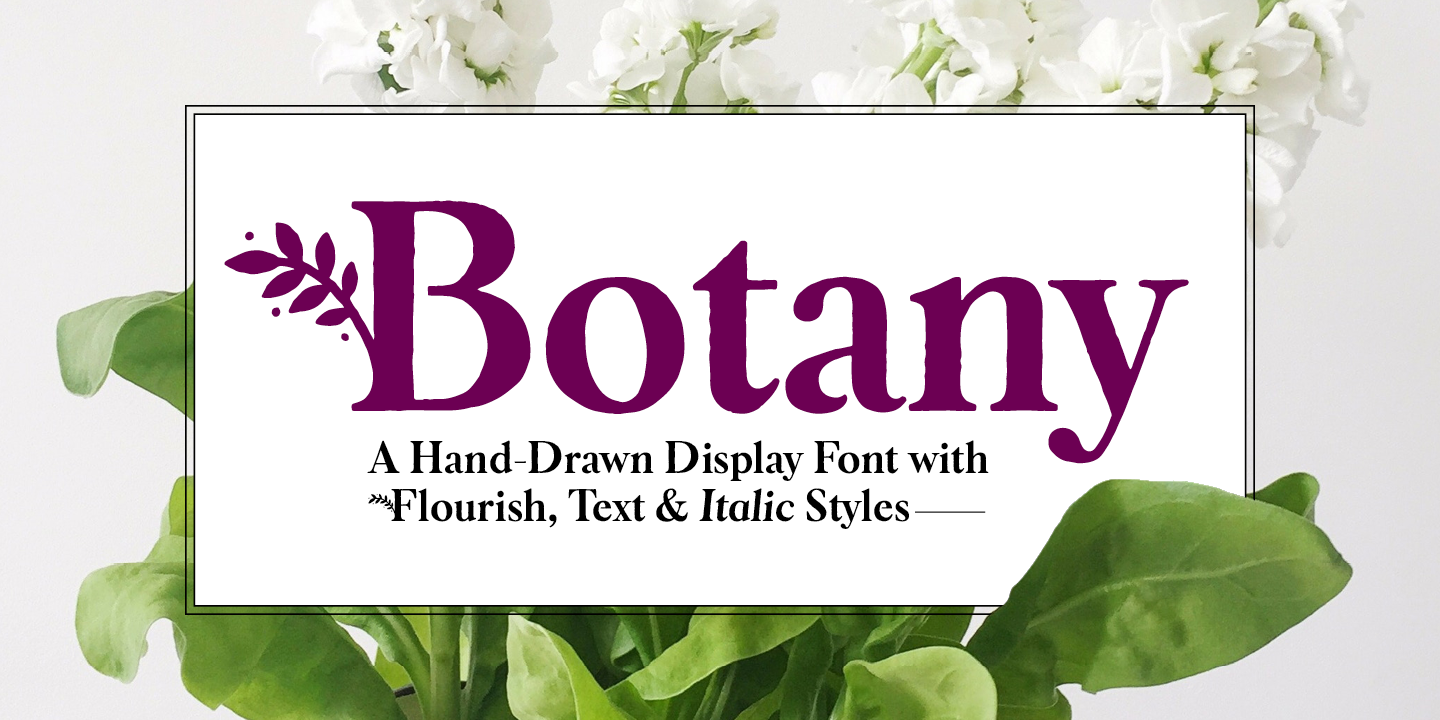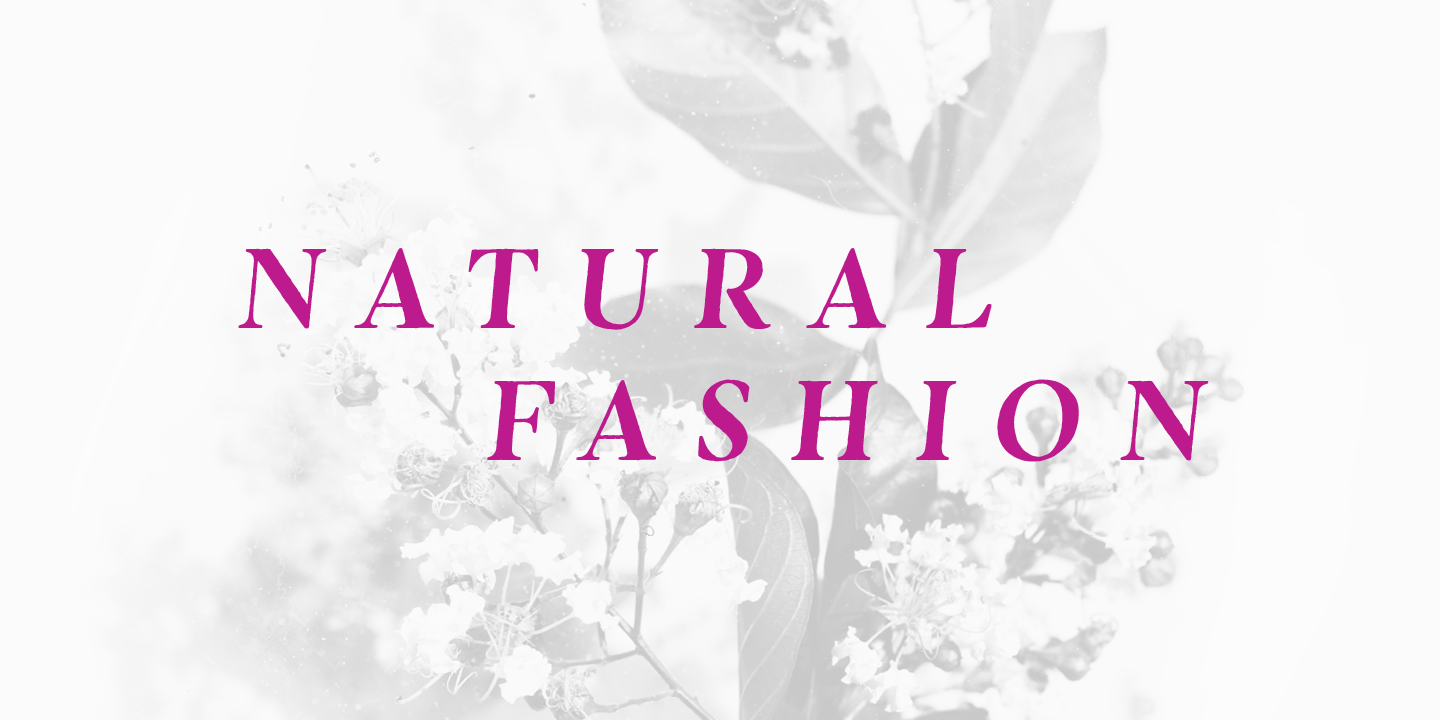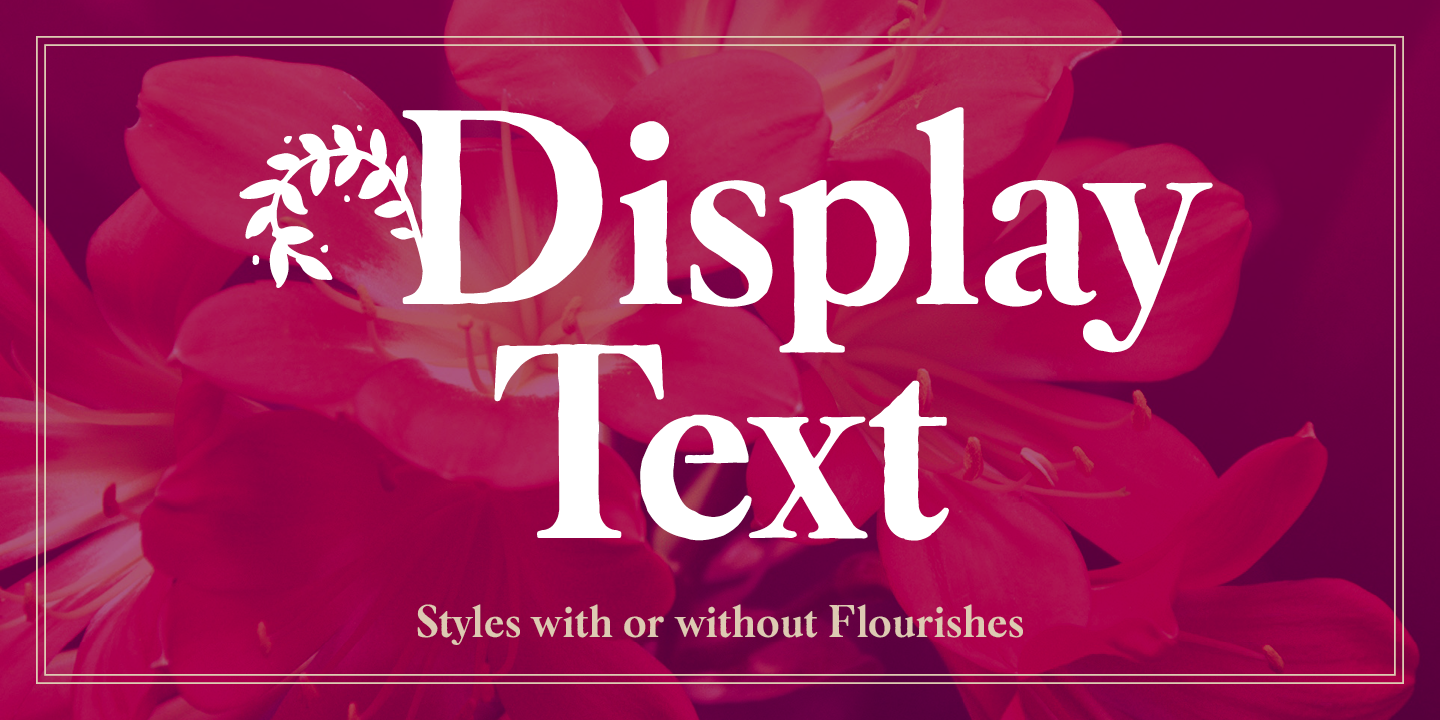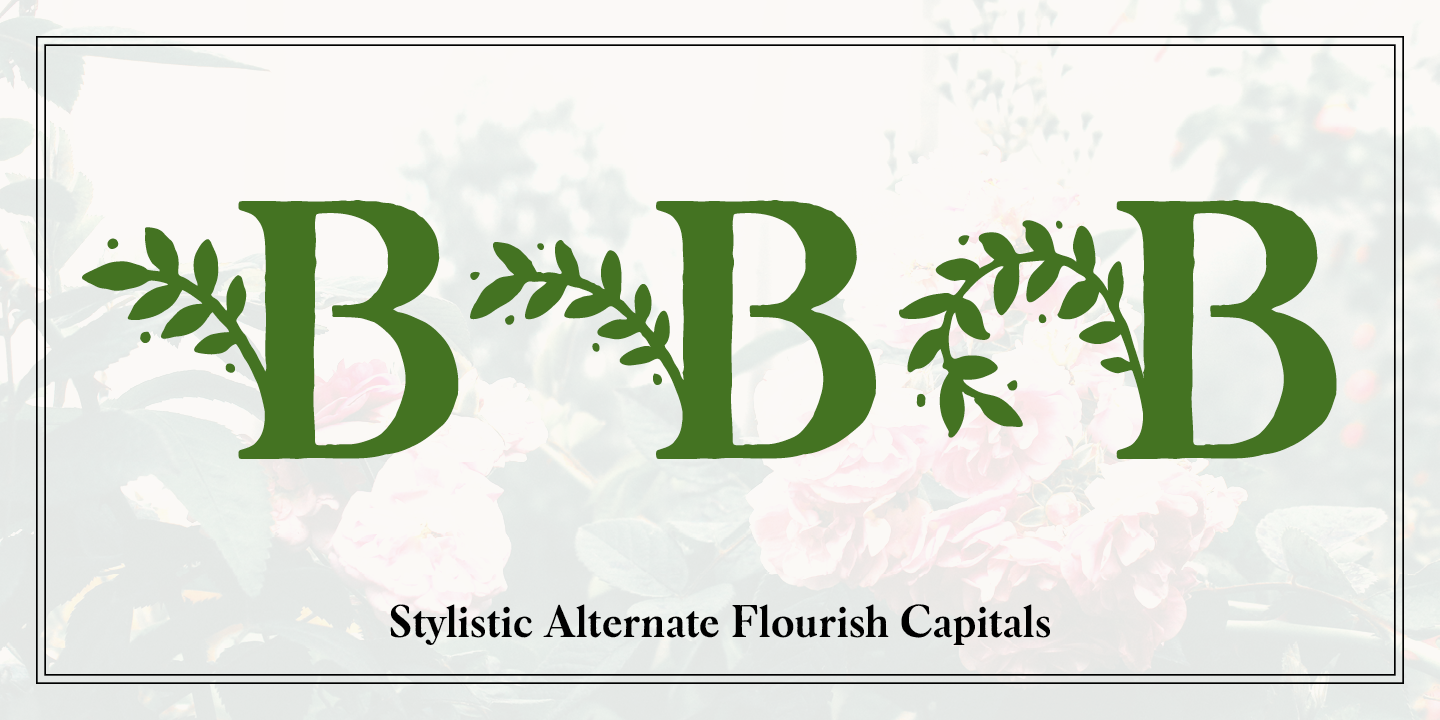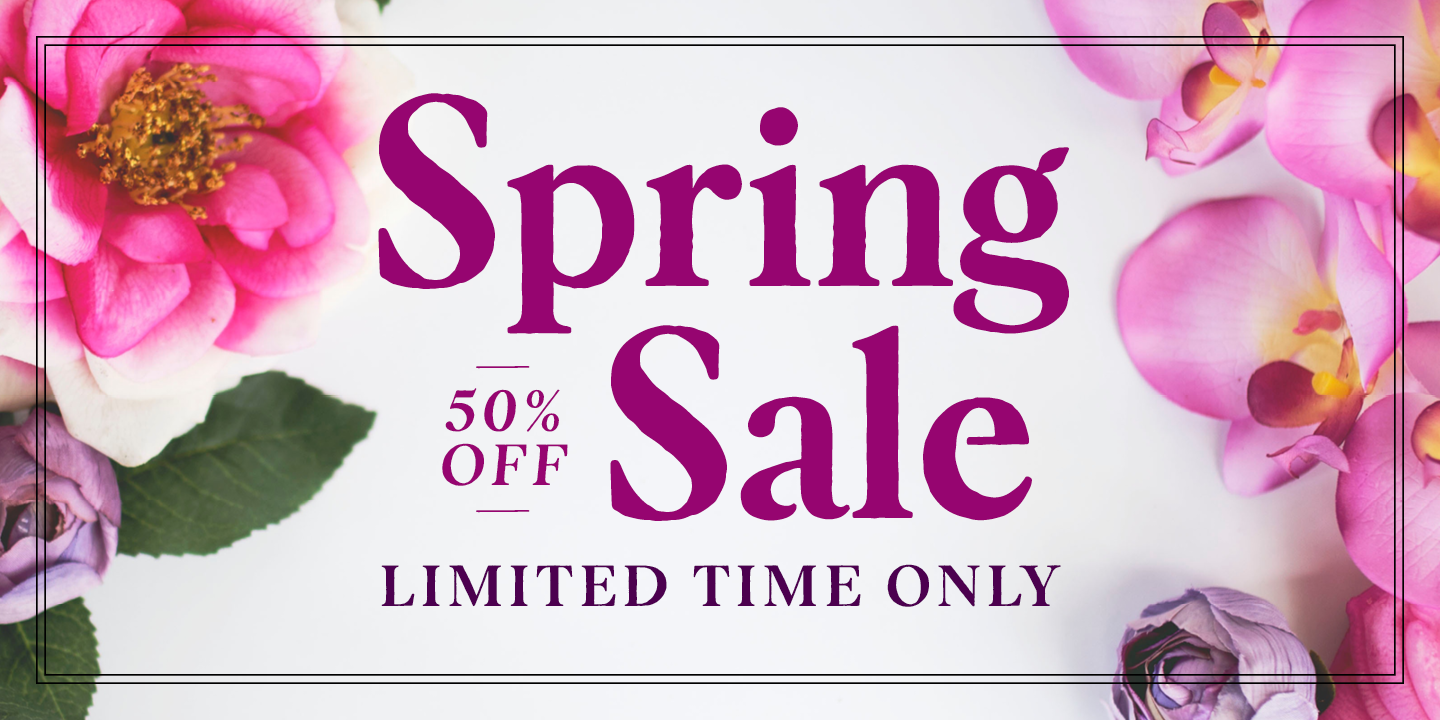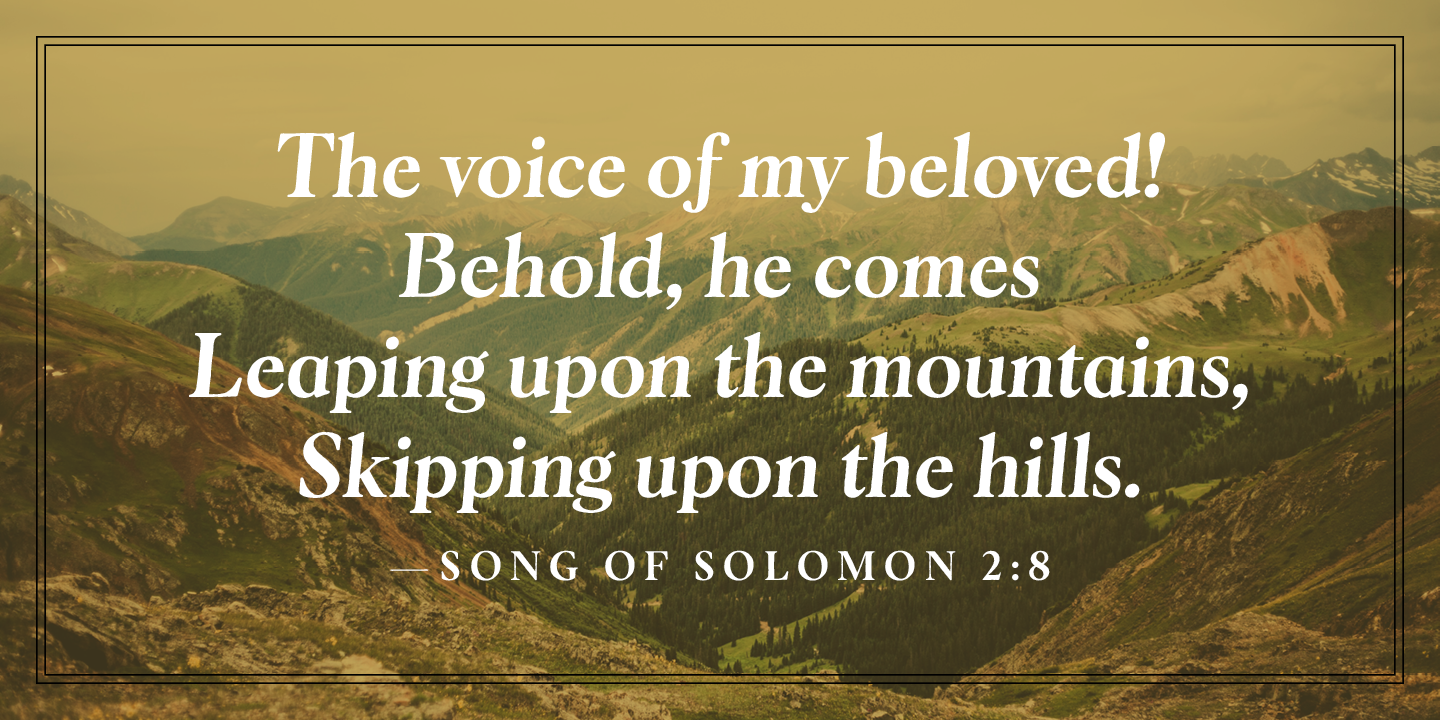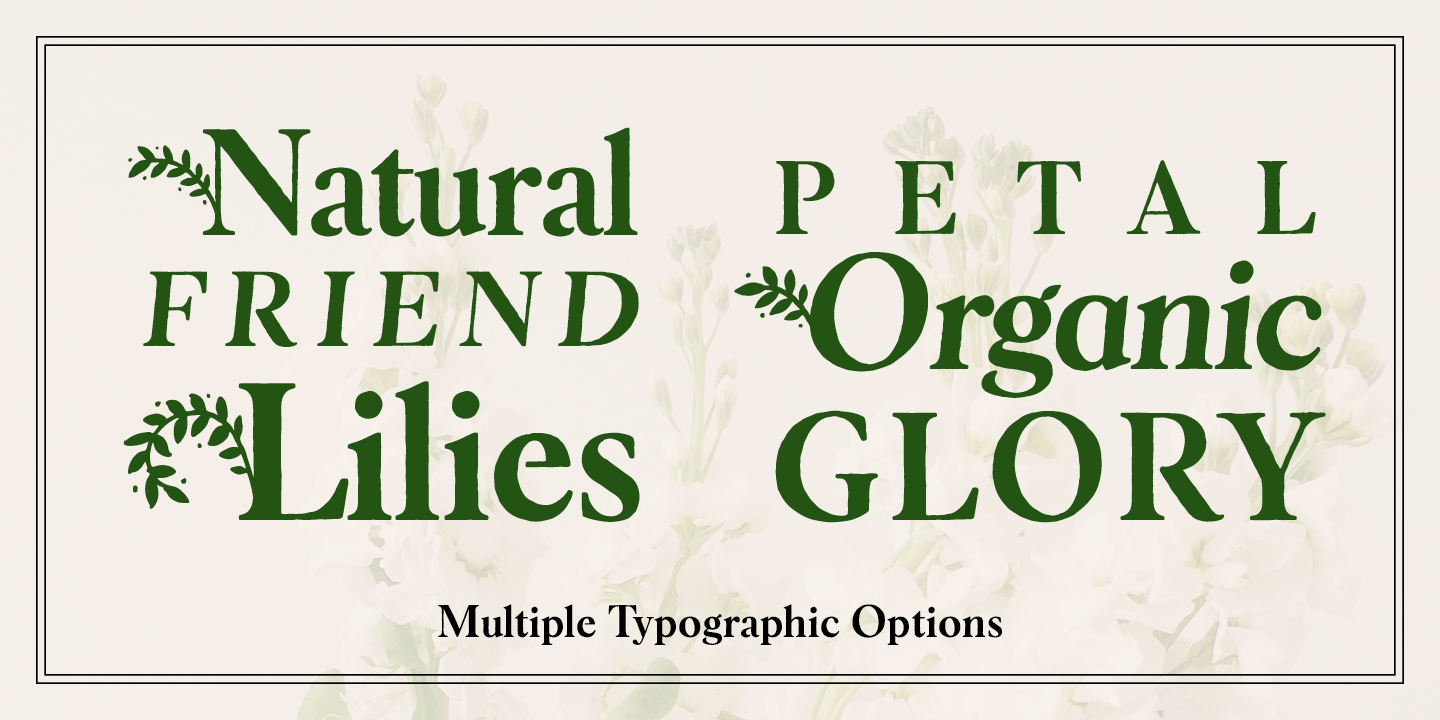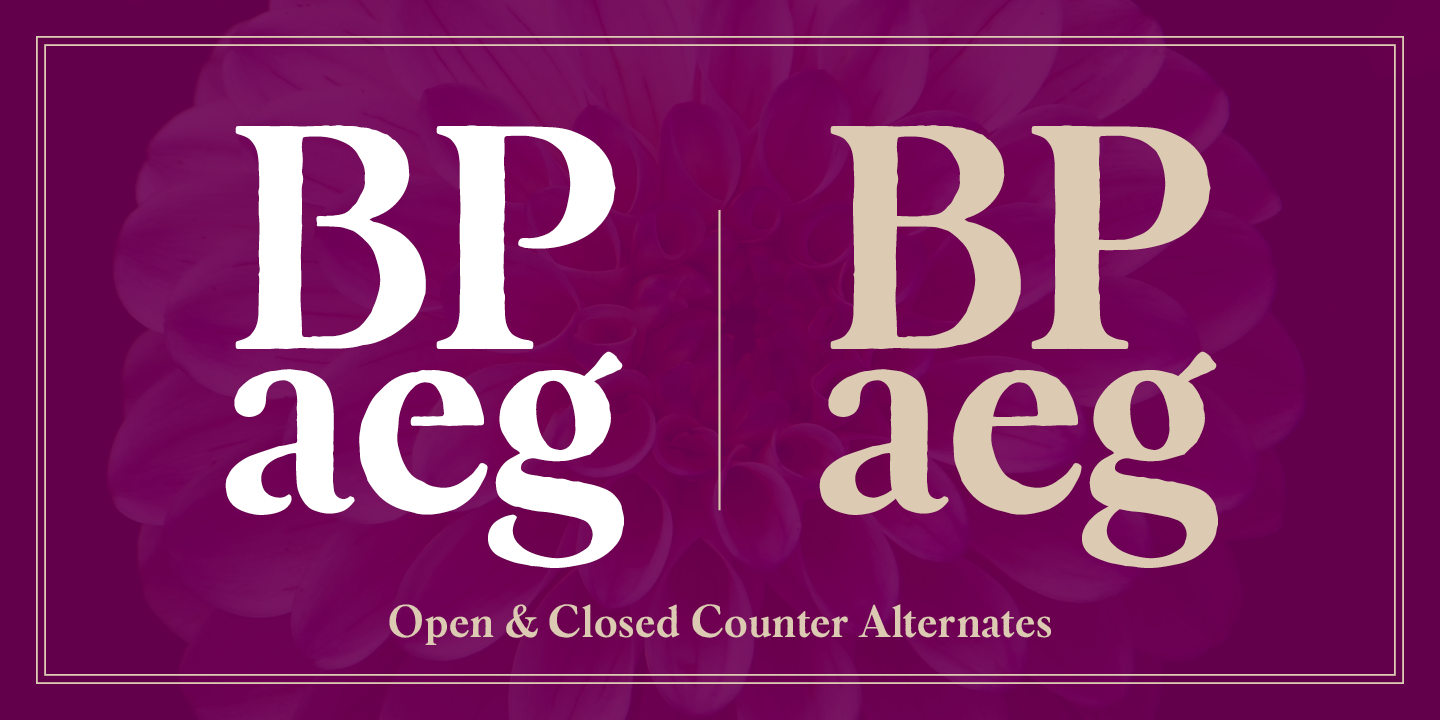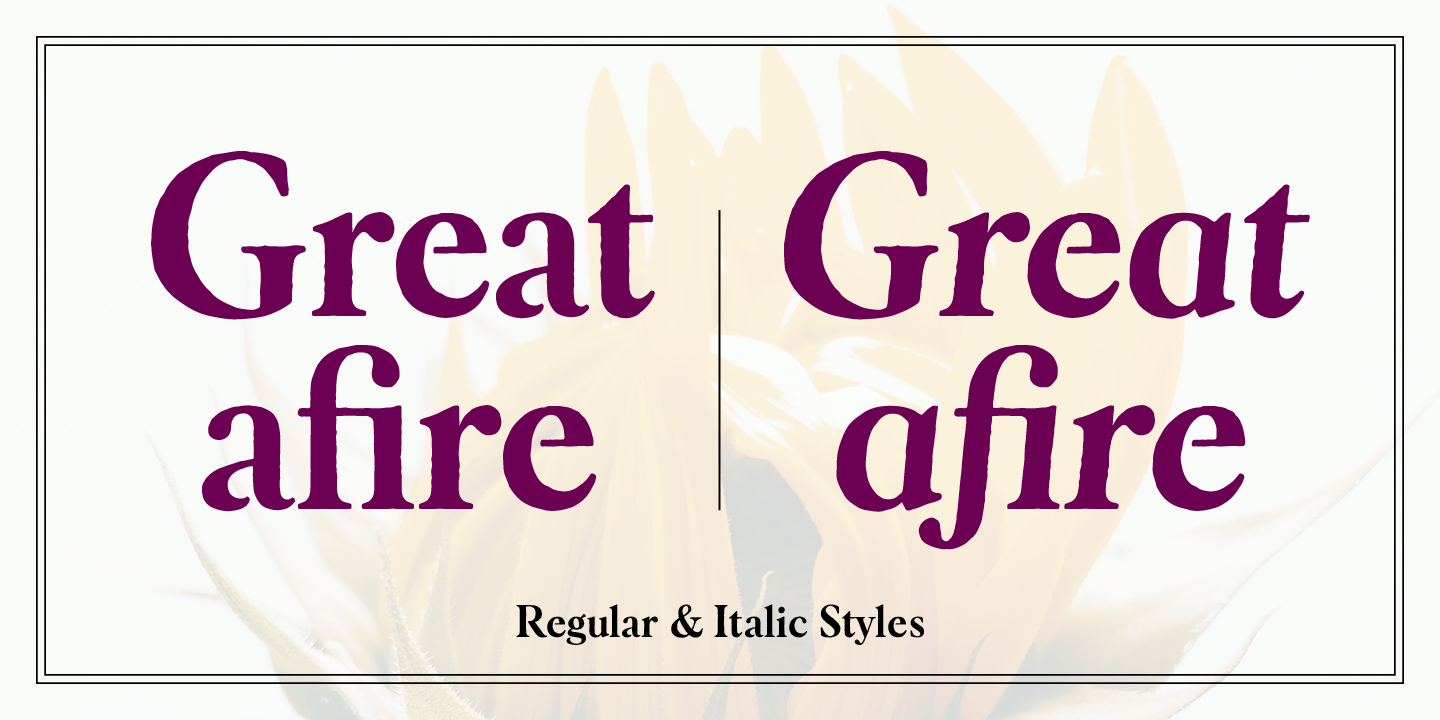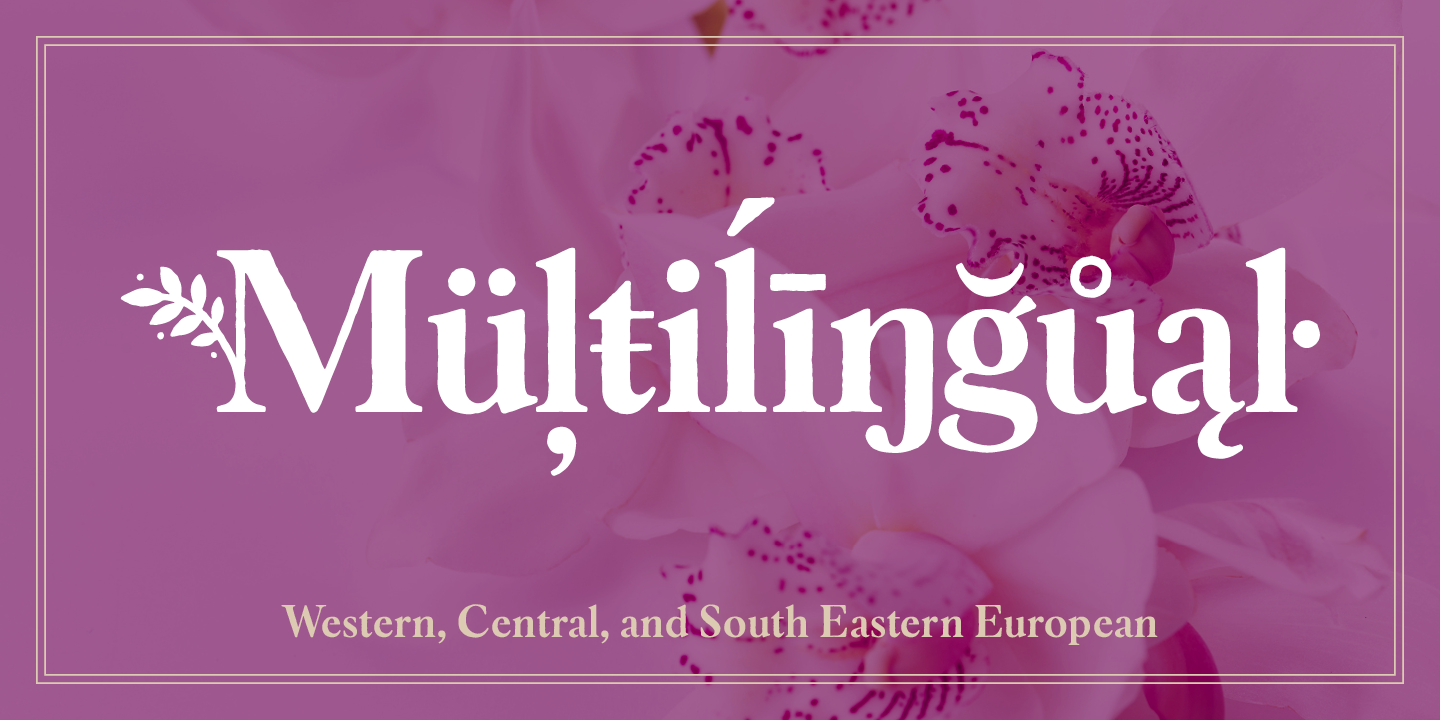
Botany is a distinct, hand-drawn display font with flourish, text, regular, and italic styles. This typeface was designed to be unique and beautiful, yet functional. The defining feature is the multiple flourished capitals that evoke a natural elegance and get attention. It has been carefully drawn for quality but still rough enough to display the handmade, textured appearance. The text style has normal capital letters for more standard needs. Botany is great for display, branding, logos, packaging, titles, and more.
Botany features: display (flourish) and text styles; regular and italic styles; flourish stylistic alternates; closed counter stylistic alternates.
All alternates are PUA-encoded for more accessibility in a variety of programs. This font has extensive Latin language support for Western, Central, and South Eastern European.